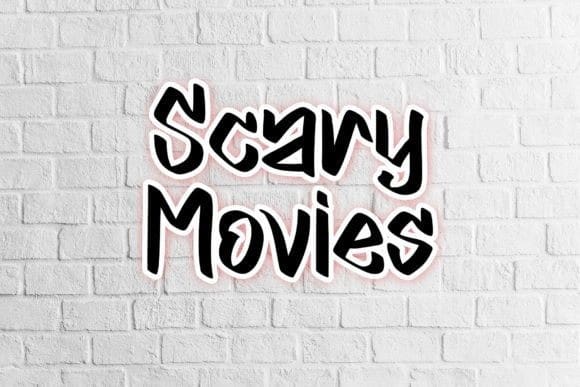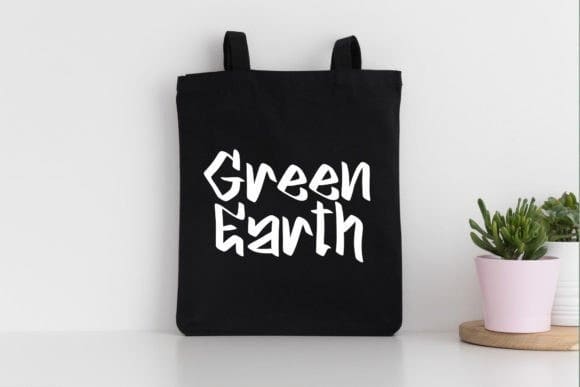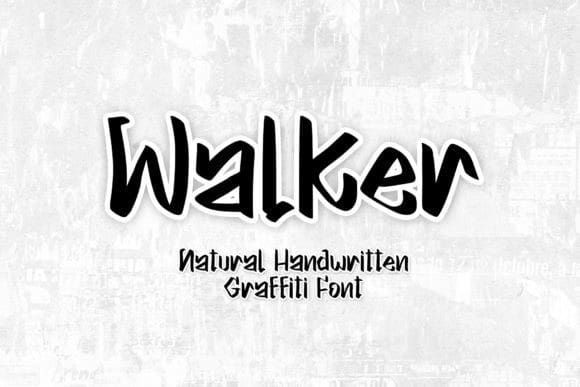
Walker Graffiti Font
Walker Graffiti Font, is a unique Handwritten font with a graffiti style. It will elevate a wide range of design projects to the be it branding, headings, wedding designs, invitations, signatures, logotype, wall art illustration, apparel, labels, and much more!